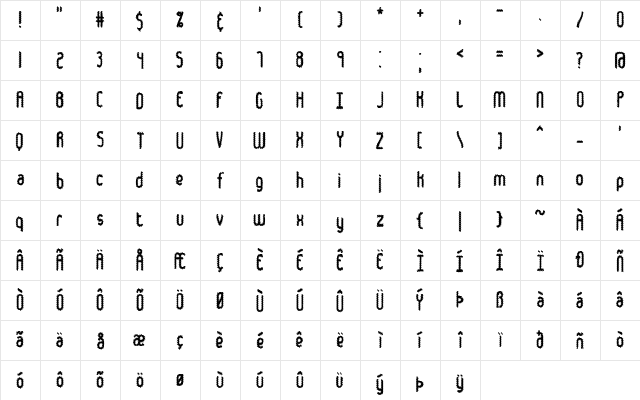
Hairball BRK Regular
Design Context for Hairball BRK Typeface
Hairball BRK is a composed and adaptable typeface that performs quietly and consistently across a wide range of design contexts.